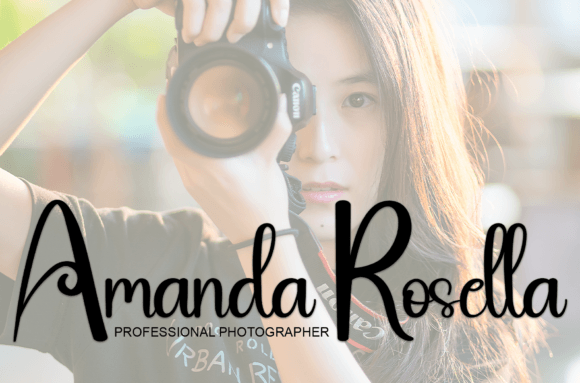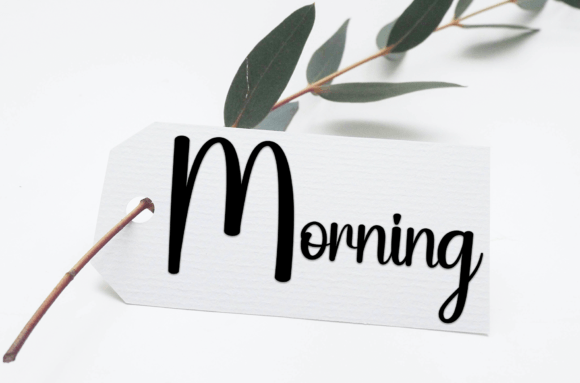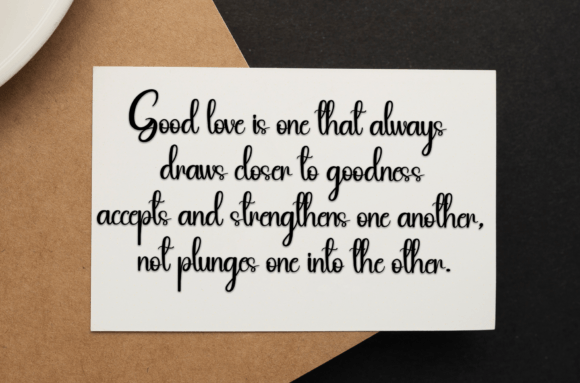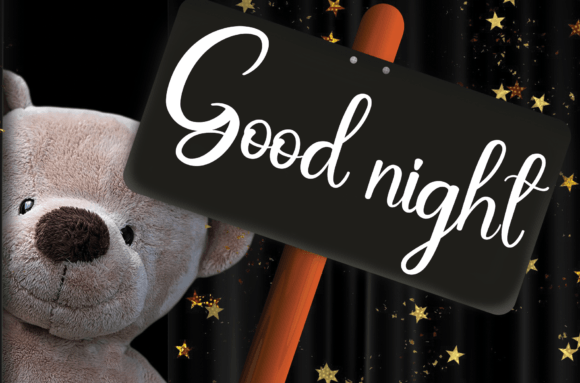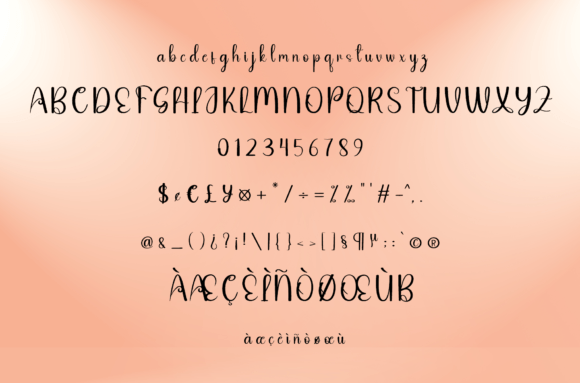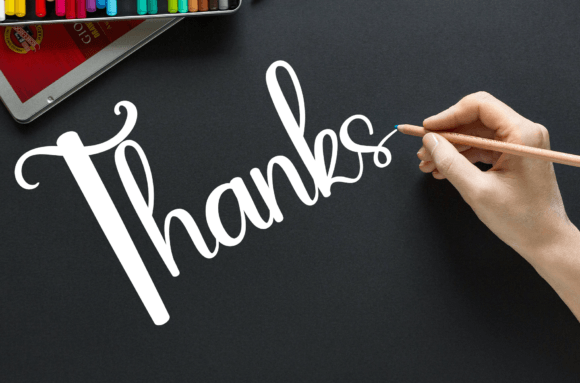
The Perfect Touch of Whimsy: Unlocking the Magic of Bulk Font
You know that moment when you’re brainstorming ideas for a special project, and suddenly, a spark of creativity hits you? Maybe it’s a wedding invitation, a birthday card, or a logo for a new business. Whatever it is, you want it to be perfect – unique, charming, and full of personality. That’s where Bulk Font comes in – a sweet and friendly handwritten font that adds a dash of magic to any design.
Bulk Font is more than just a font; it’s a way to convey your message with a touch of warmth and friendliness. Whether you’re a seasoned designer or just starting out, Bulk Font is an invaluable addition to your toolkit. Its creative and cute style makes it perfect for projects that need a fun and playful touch. With Bulk Font, you can bring your ideas to life and make them truly unforgettable.